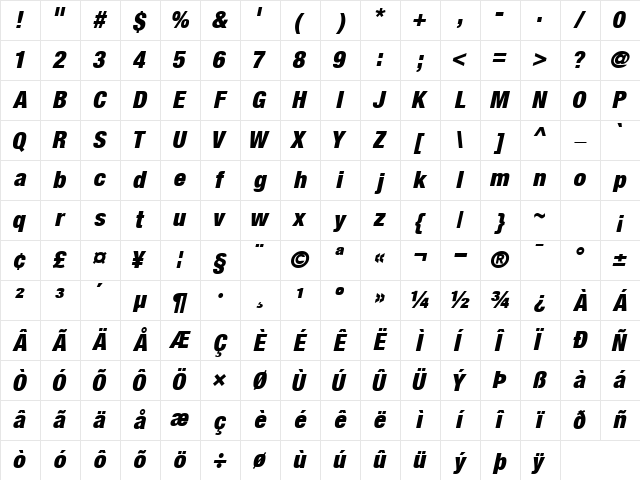
Design Context for ContextRepriseBlackCondSSK
ContextRepriseBlackCondSSK is a composed and adaptable typeface that performs quietly and consistently across a wide range of design contexts. The slanted form adds forward momentum and visual energy. Its bold stroke weight gives it real presence on the page. Its narrow stance lets it pack a punch even in space-constrained designs.